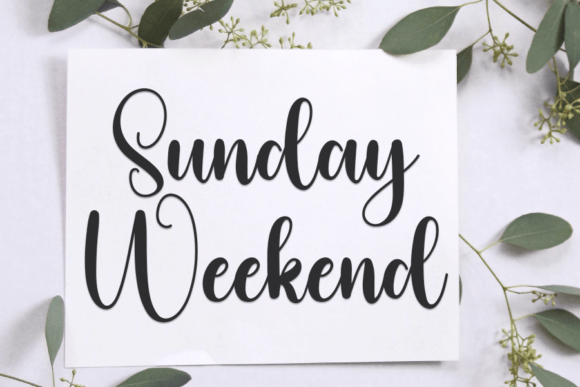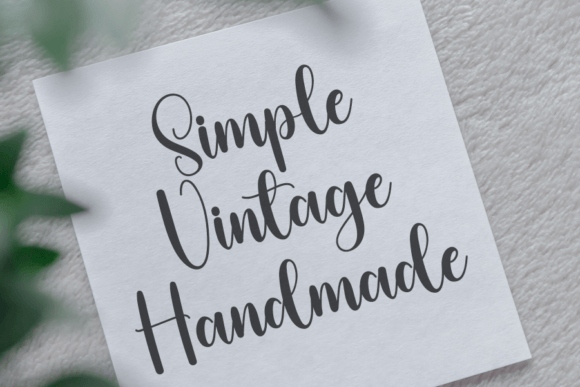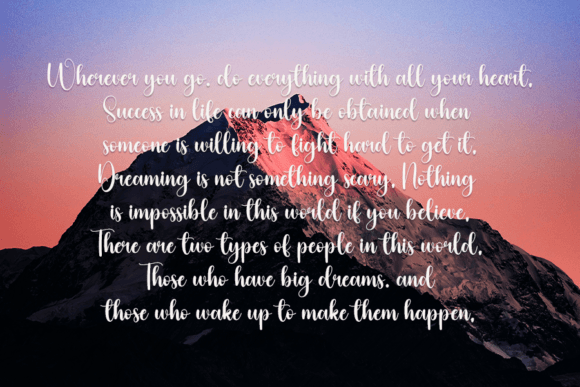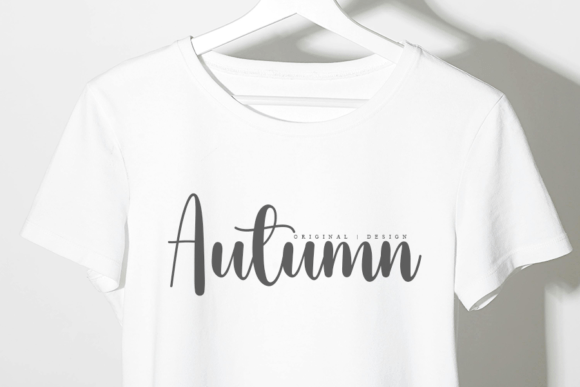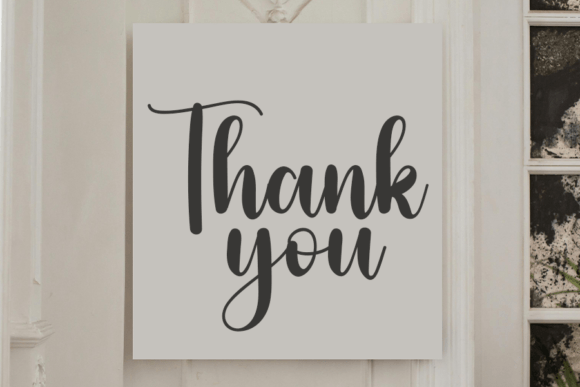
The Easter Font: A Delicate Handwritten Treasure for Creative Projects
A Personal Review: What I Love and What to Consider
- 💖 Elegant, flowing script that’s perfect for adding a touch of sophistication to any design
- ✅ Highly versatile and adaptable for various creative projects, from letters and invitations to food product labels and titles
- 🎨 Beautifully crafted with a unique, hand-drawn feel that sets it apart from more generic fonts
- ⚠️ Limited availability of stylistic alternates, which might restrict some design options
- ⚠️ May not be the best fit for very large-scale or heavily stylized projects due to its delicate nature
The Designer Inspiration Behind Easter Font
Easter Font was crafted with the intention of creating a beautiful, delicate script that captures the essence of springtime and the Easter holiday. The designer’s inspiration came from traditional handwritten fonts, combined with a modern twist to create a unique and versatile typeface.
Q: What type of projects is Easter Font best suited for?
A: Easter Font is ideal for a variety of creative projects, including letters, invitations, food product labels, titles, and more.
Q: Is Easter Font available in different weights or styles?
A: Currently, Easter Font is available in a single weight, but its delicate nature makes it versatile enough to be used in various design contexts.